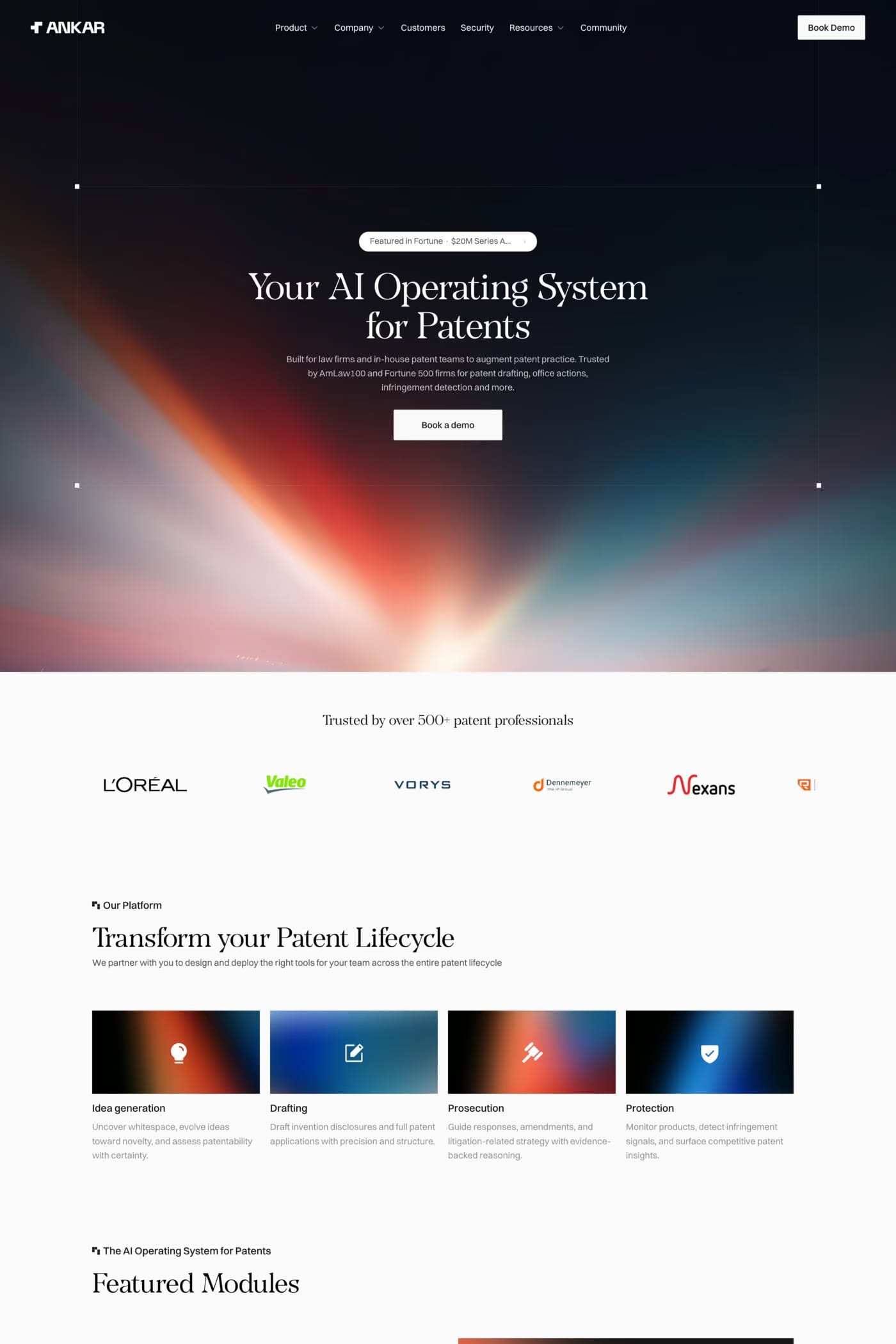
Kibitz is a sans-serif typeface from Colophon.
Named after the act of providing unwelcome advice at a card game, Kibitz is a high-contrast display serif that features exaggerated angular details combined with subtle chamfers resulting in a sophisticated design.